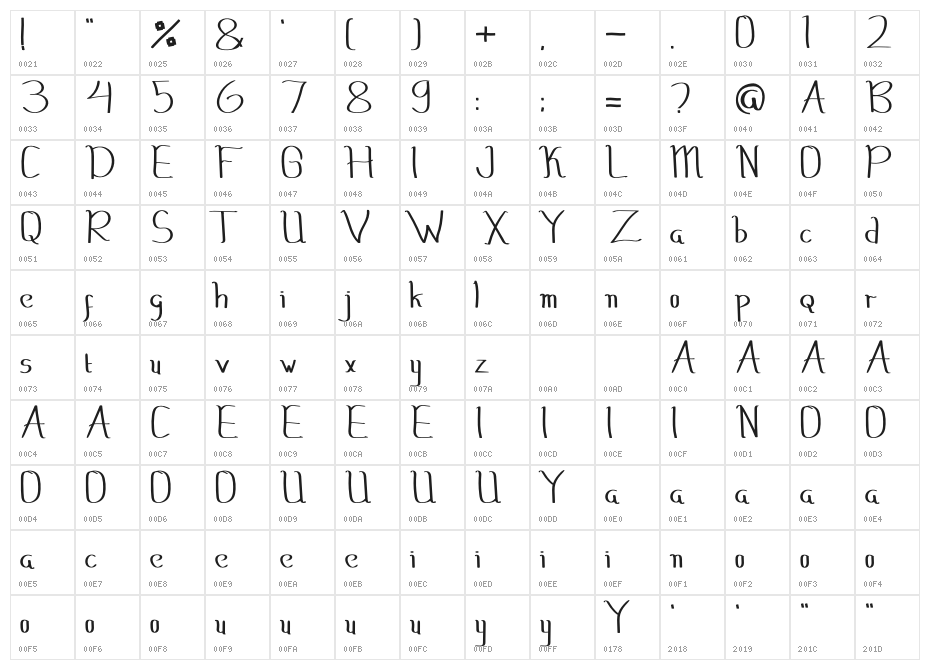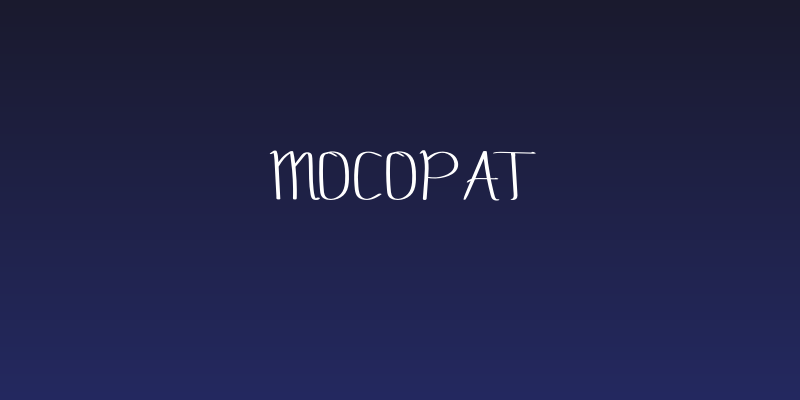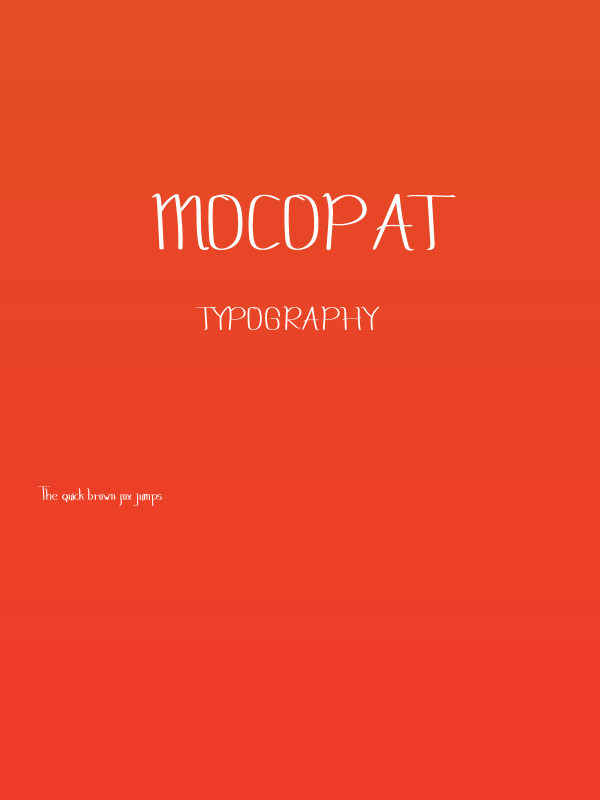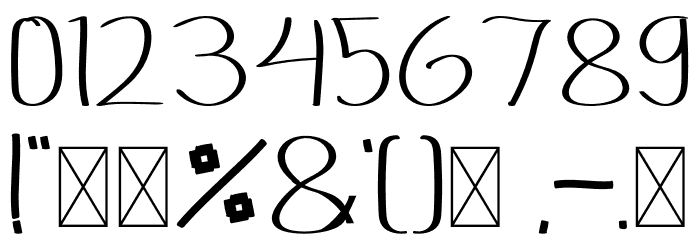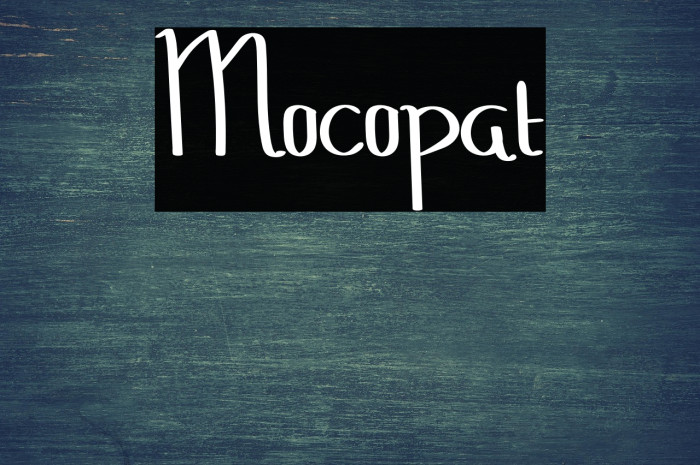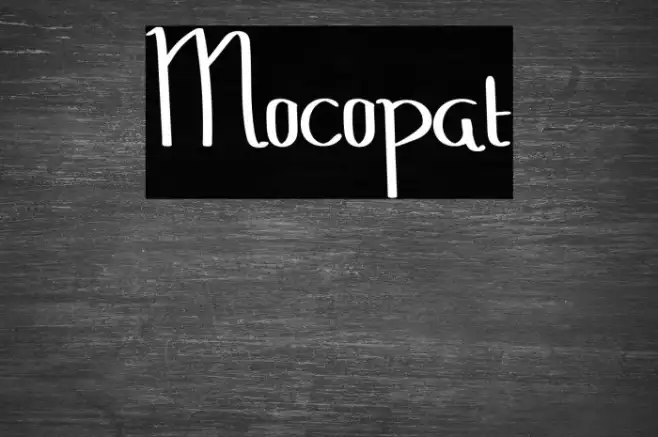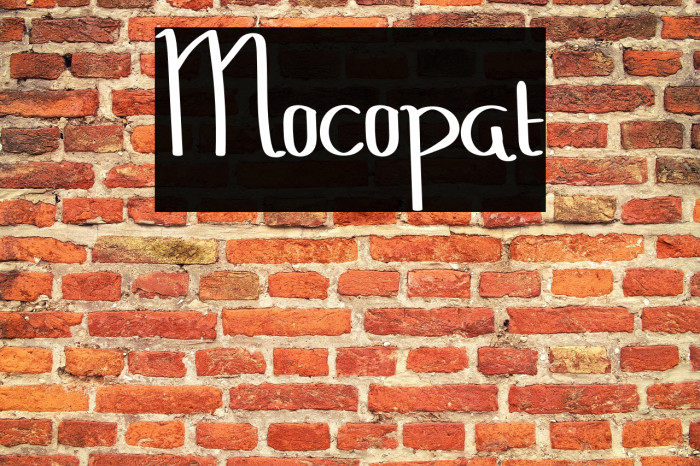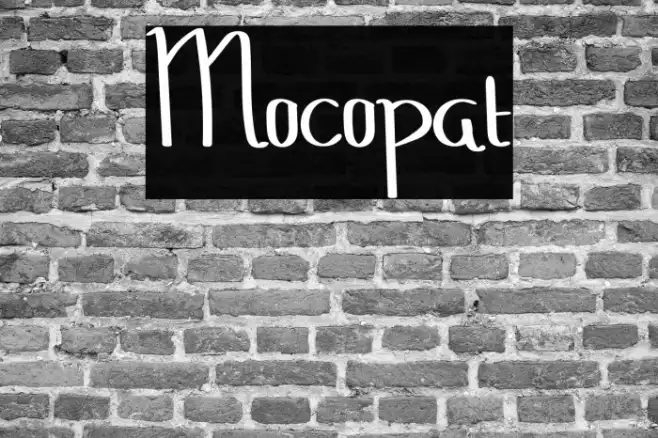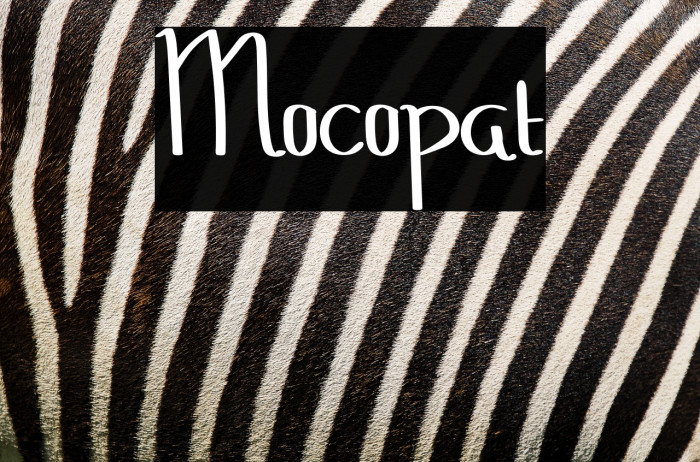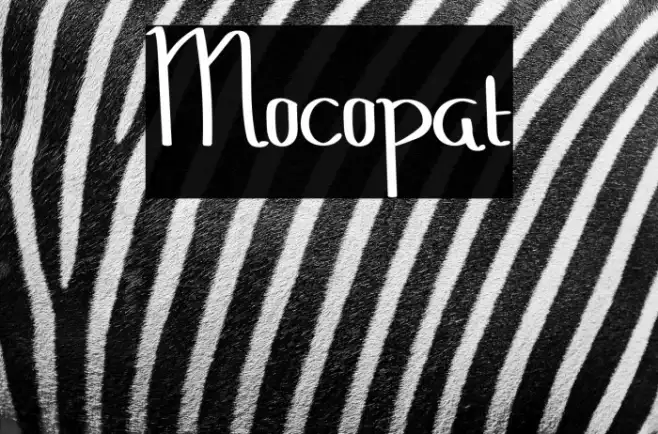
Mocopat Font
Mocopat Description
This font features a unique and artistic style with a hand-drawn appearance. The uppercase letters are tall and slender, with slight curves that add a whimsical touch. The lowercase letters maintain a consistent height, with playful loops and strokes that give them a lively character. Numbers are bold and slightly irregular, enhancing the font's handcrafted feel. Special characters are creatively designed, matching the overall artistic theme. This font is perfect for projects that require a personal and creative touch, such as invitations, greeting cards, or artistic branding.
| Overall Style | Artistic |
| Proposed Projects | Ideal for invitations, greeting cards, artistic branding, and creative projects. |